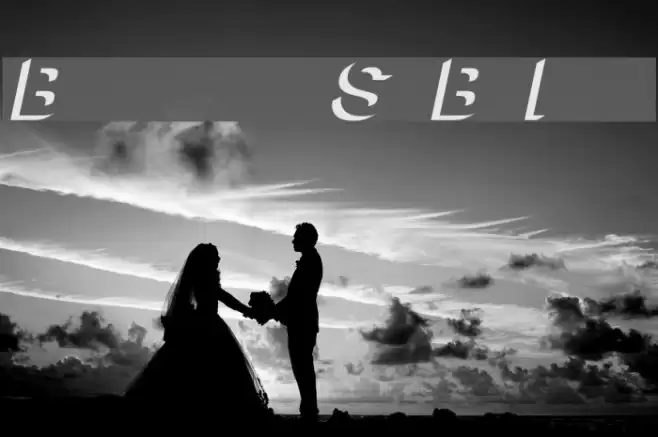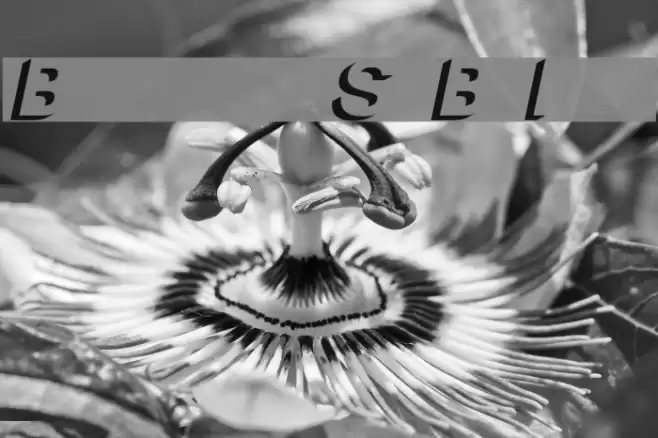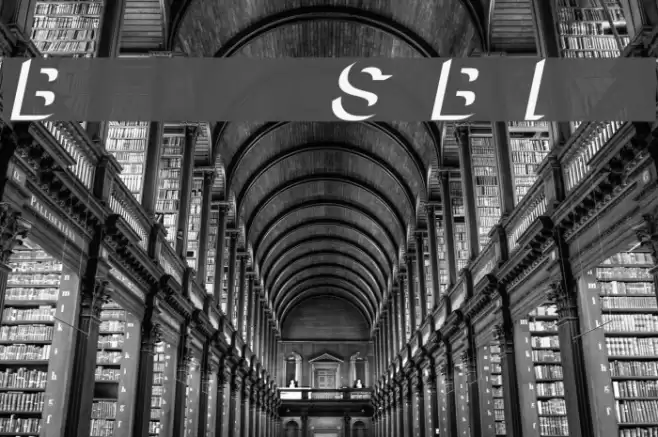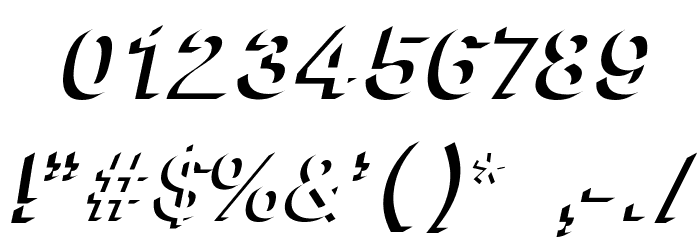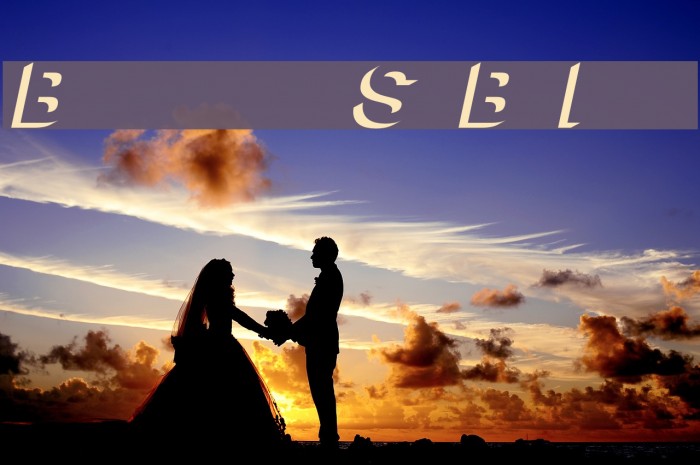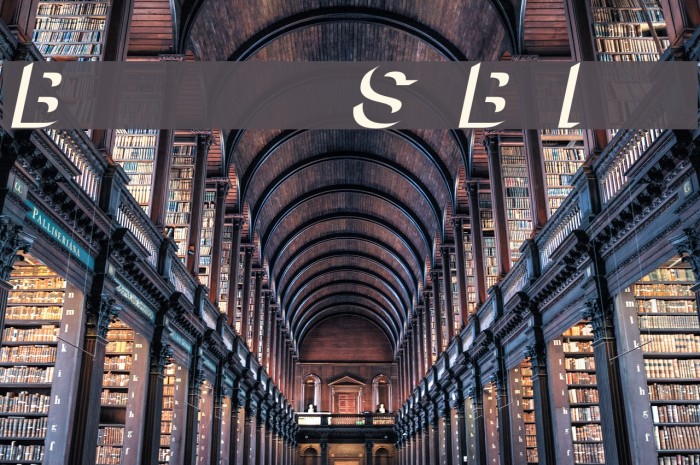
Block Shadow Bold Italic Font
Block Shadow Bold Italic Description
This font features a bold and italicized style with a distinct block shadow effect, giving it a three-dimensional appearance. The uppercase and lowercase letters are designed with sharp angles and clean lines, creating a sense of movement and dynamism. The numbers and special characters maintain this bold and italicized style, ensuring consistency across all glyphs. The shadow effect adds depth, making the text stand out, while the italic slant provides a sense of forward motion. This combination of boldness and shadowing makes it ideal for attention-grabbing designs.
A bold, italicized font with a block shadow effect for a dynamic, 3D look from Uncategorized fonts.
- Proposed Projects: Ideal for posters, headlines, logos, and any design requiring a bold, eye-catching typeface.